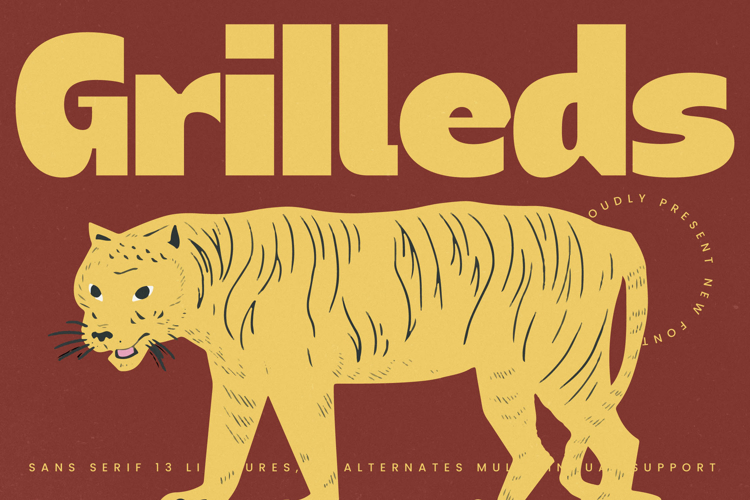
Grilleds - Sans Serif font
Grilleds Typeface is a bold sans serif display font that combines geometric strength with a modern, playful edge. Featuring 13 ligatures and multiple alternates, this font gives designers the flexibility to create clean, impactful, and dynamic typography. Its strong, blocky letterforms paired with smooth curves deliver clarity and boldness, making it ideal for projects that require a powerful and straightforward visual identity. With multilingual support, Grilleds ensures versatility across global applications.